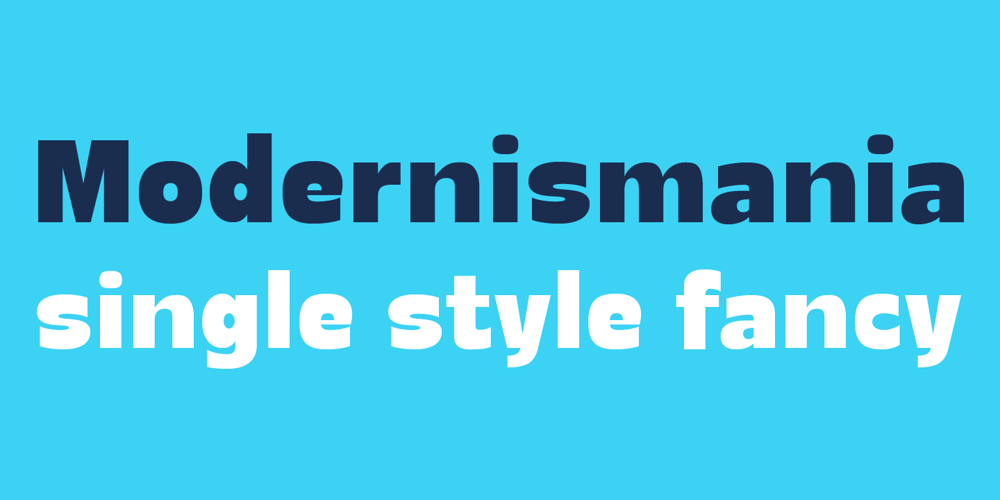
Modernismania Font Family was designed by Leonhard Katschner and published by Brave Type. Modernismania contains 1 styles and family package options. Modernismania is the headline font you need.Modern and elastic it will give your branding the freshness it deserves.A full latin language support is included, also the numbers are funky.With a flexible contrast in the middle area, this font is truely sympathic.